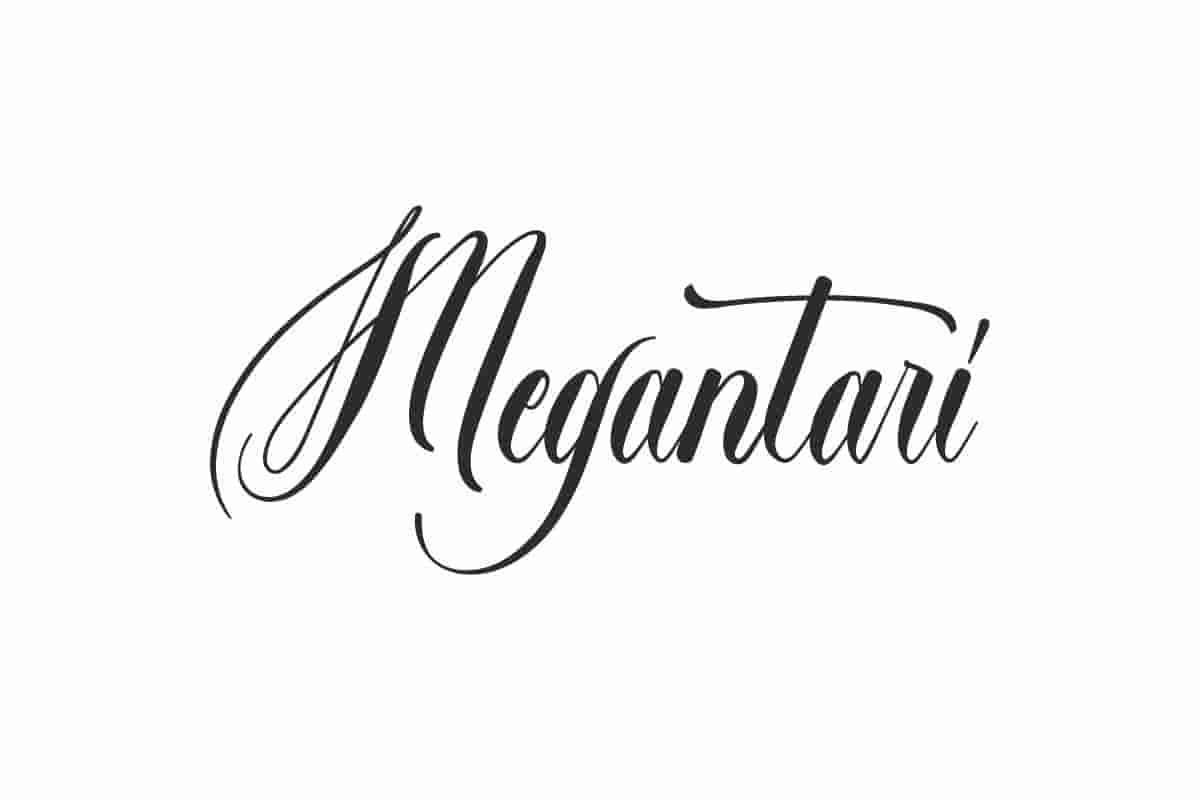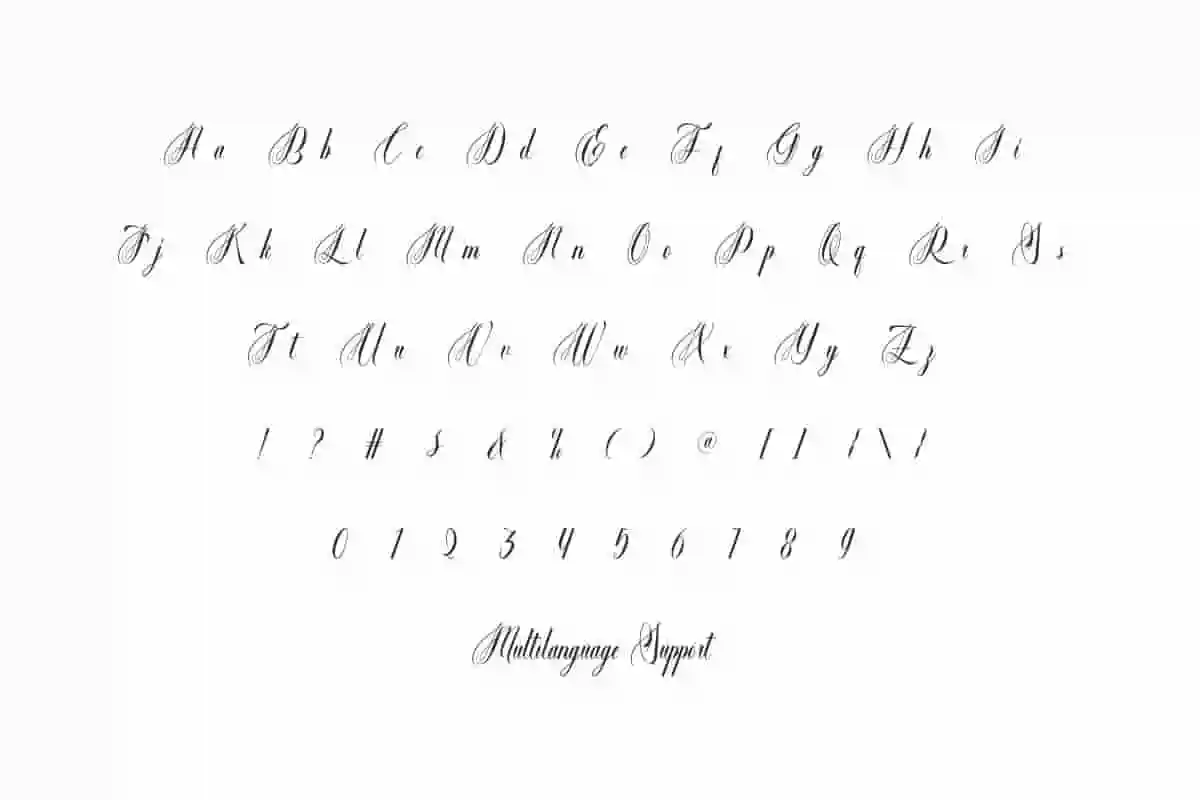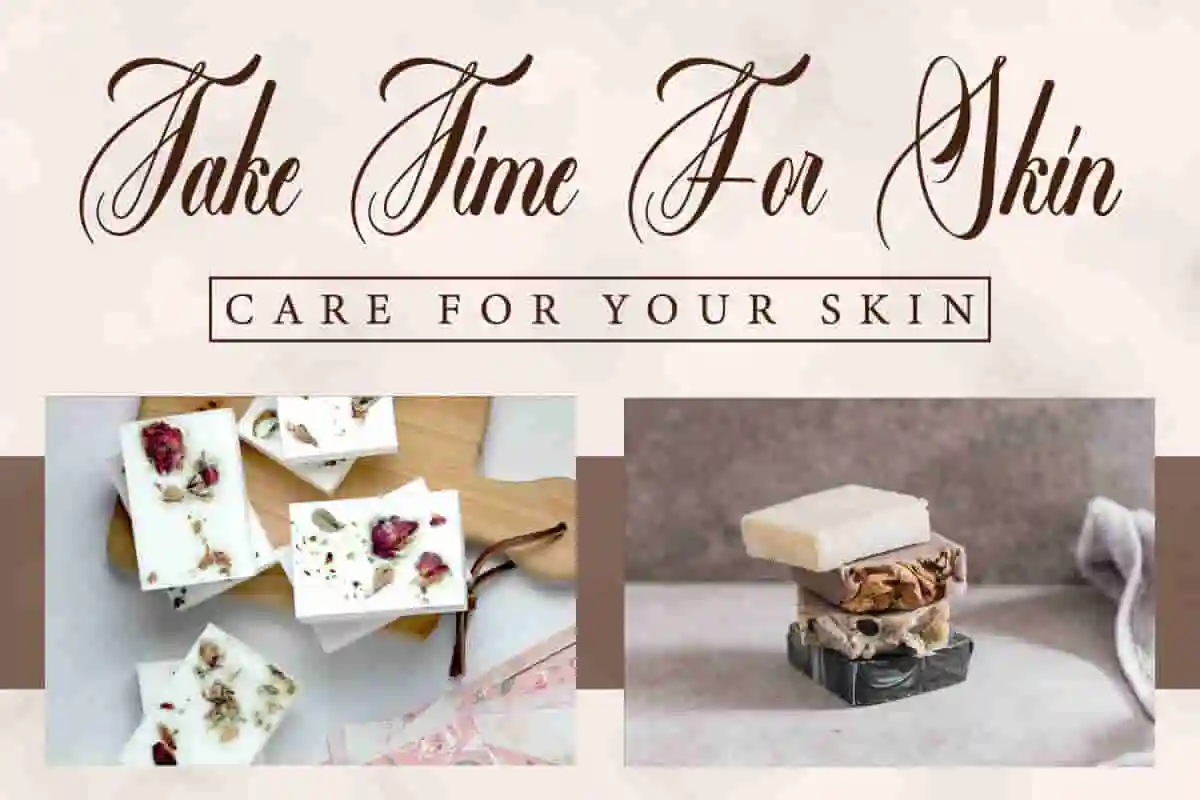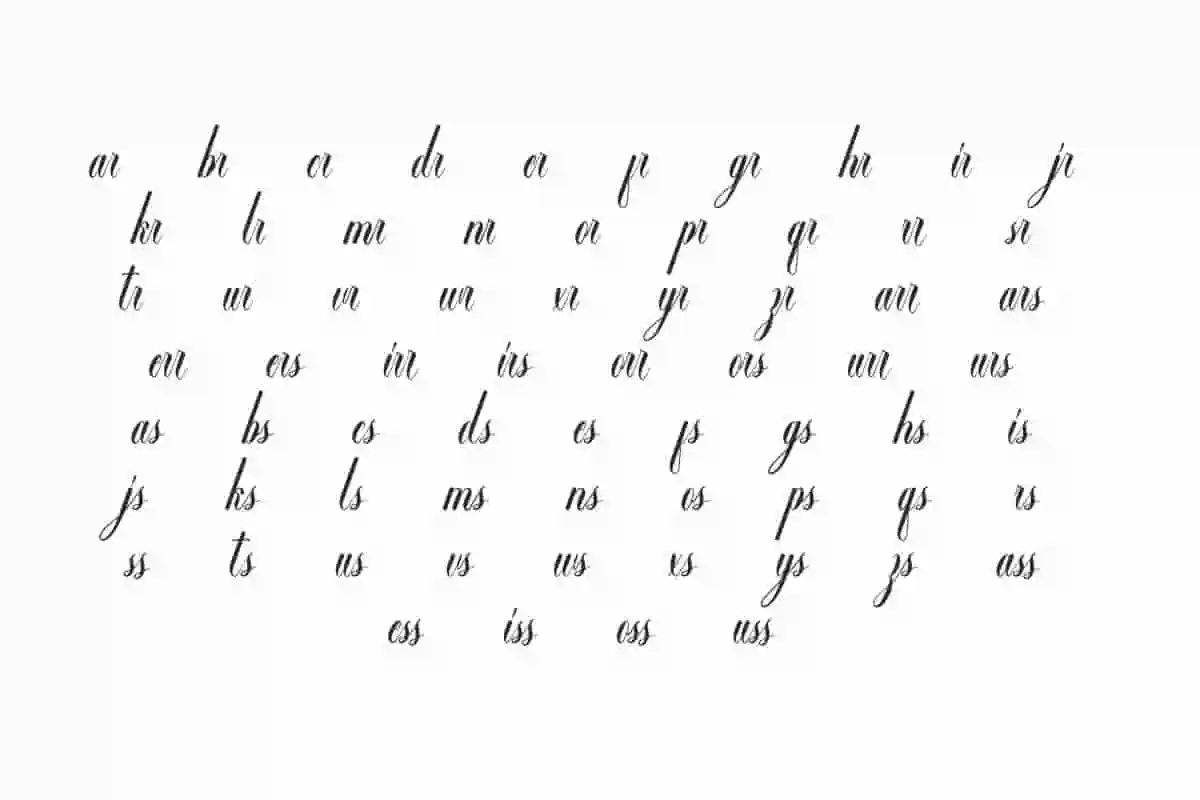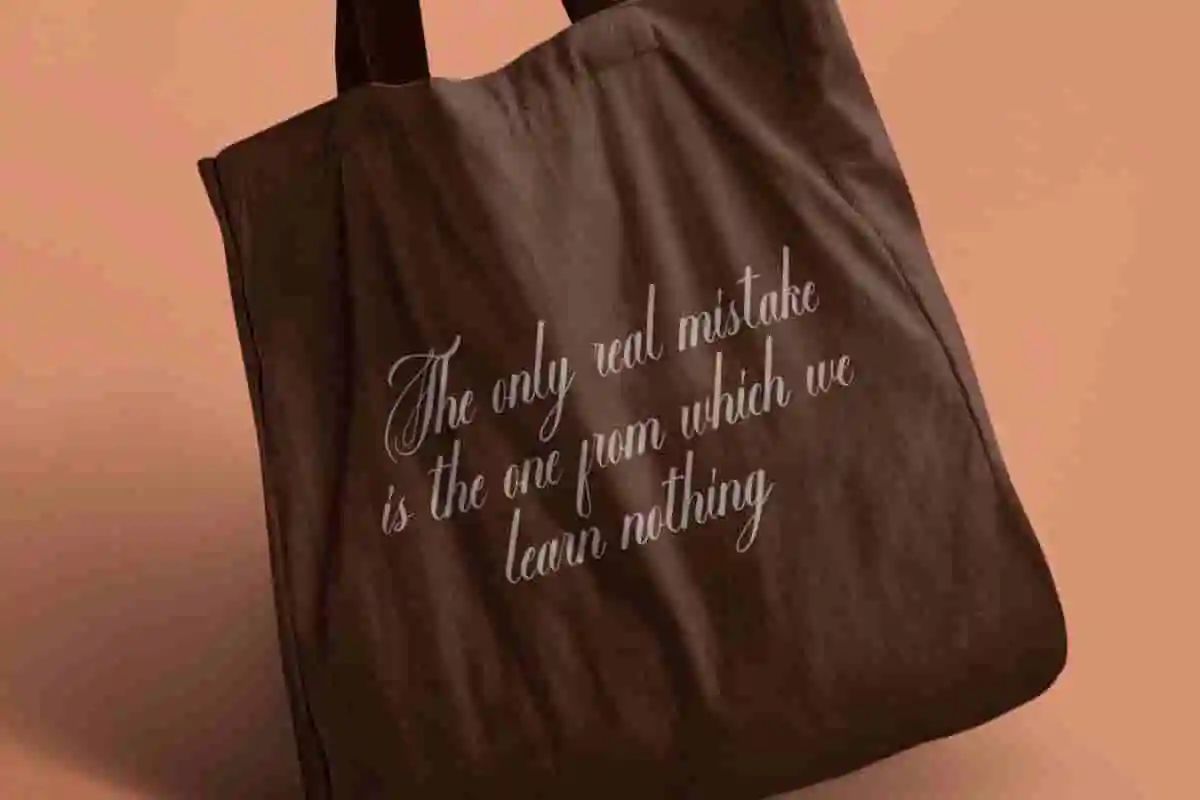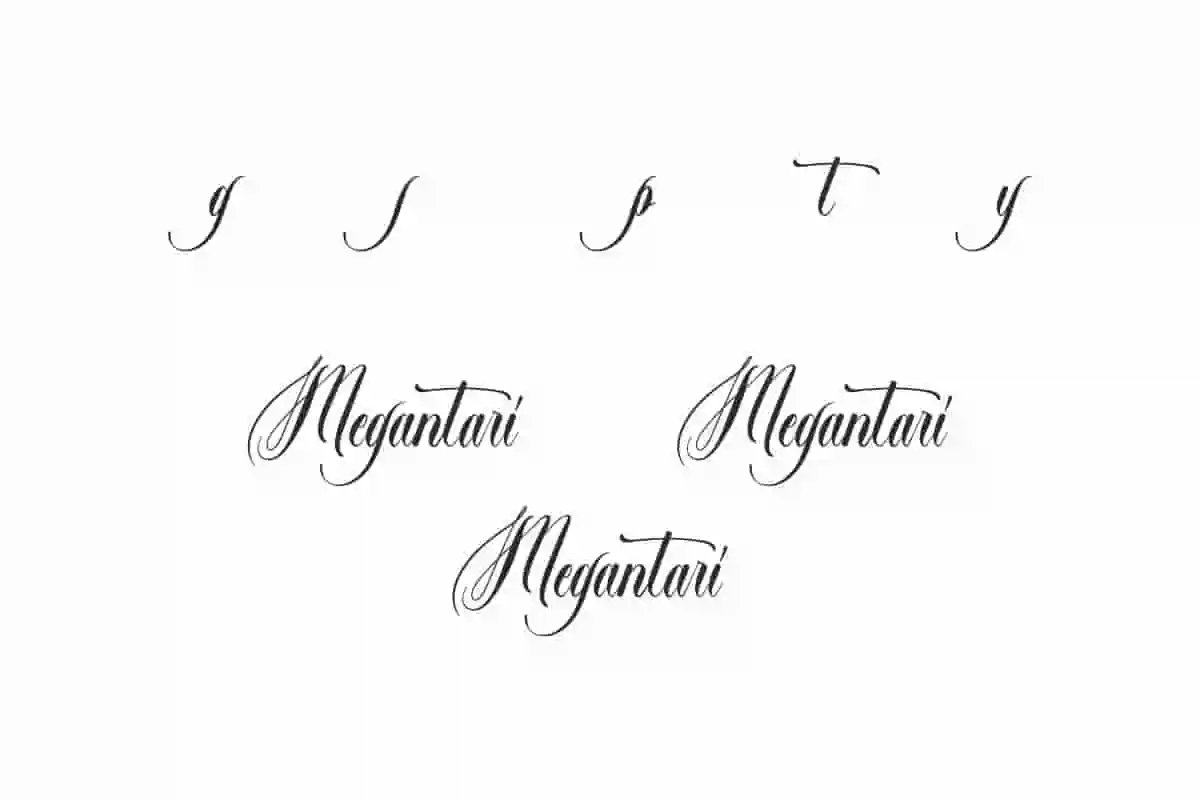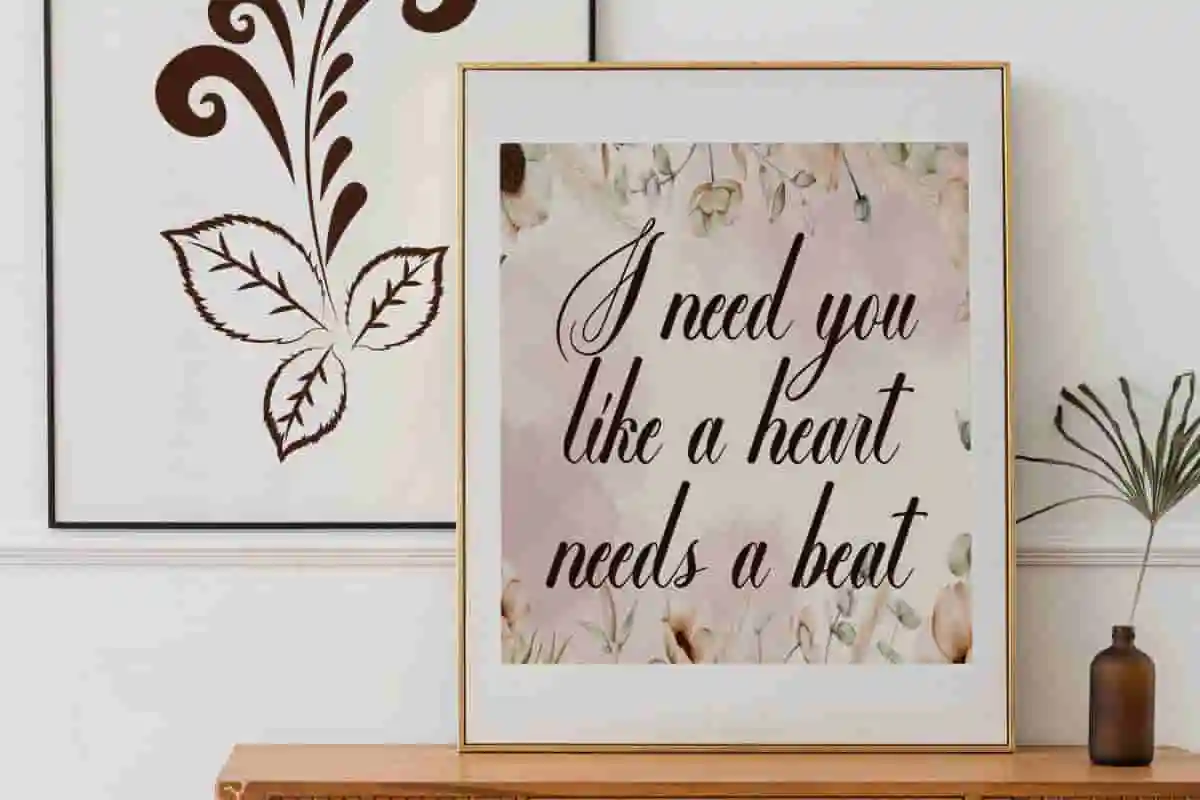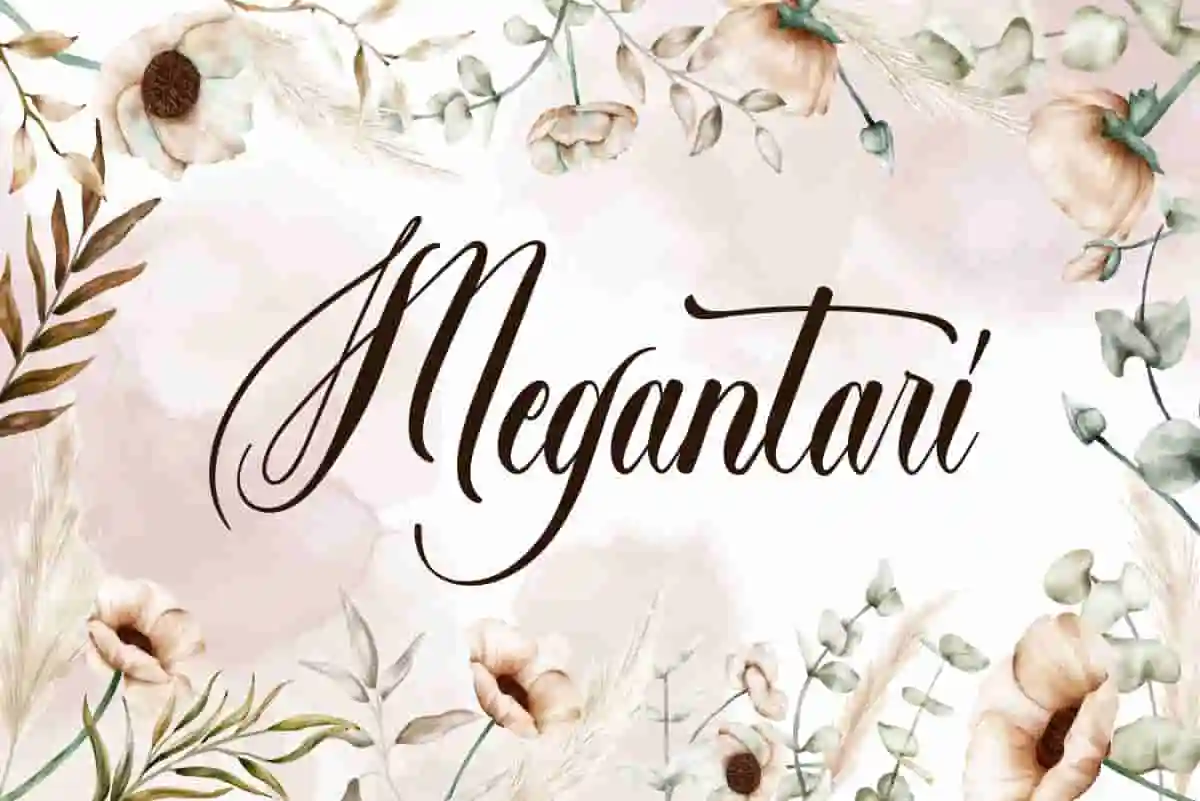
Megantari Font is a flawless calligraphy script font that will be suitable for a variety of your creative projects. This will make anything look enchanting!
Megantari Font is a beautiful flawless calligraphy script font with a luxurious senses. Carefully crafted typography provides a neat look that will enhance your design, such as brand logo, brochure, business card, cover, invitation, label, poster, packaging design, quote, screen print, stationery, sticker, title, watermark, website, and many more!
Megantari Font comes with a full set of Uppercase and Lowercase Basic Characters, Number, Punctuation, Symbol, Ligature, and Alternate. Elegant typography that is made perfectly without defects so that it will add aesthetic value to the font. It is versatile for your business industry, such as, author, botany, bridal boutique, clothing brand, cosmetic, craft, event organizer, florist, furniture, gardener, homeware, printing, publishing, restaurant, skincare, spa salon, wedding, etc.